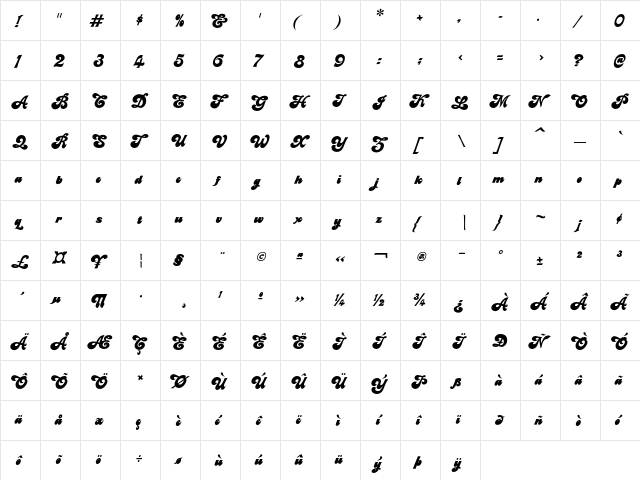
BenguaitCharismaScript Regular Font Preview
BenguaitCharismaScript Regular
BenguaitCharismaScript Regular Font Details
Design Context for BenguaitCharismaScript Typeface
BenguaitCharismaScript brings a calligraphic fluidity to the page — its connecting strokes and expressive curves give it an unmistakably human quality.
Font Pairing: Combine BenguaitCharismaScript with a simple geometric sans for maximum contrast — the tension between flowing curves and clean structure is a classic typographic pairing.
Pro Tip: Use BenguaitCharismaScript for short runs of text — names, titles, or taglines. Extended body copy in script faces tires the eye quickly.